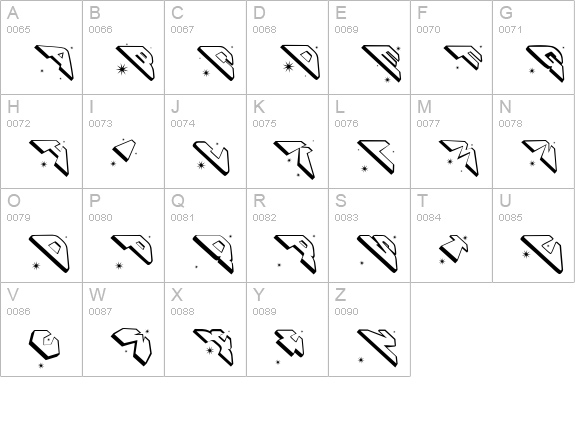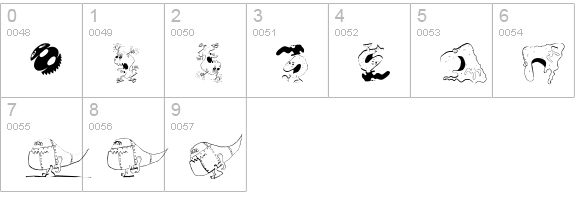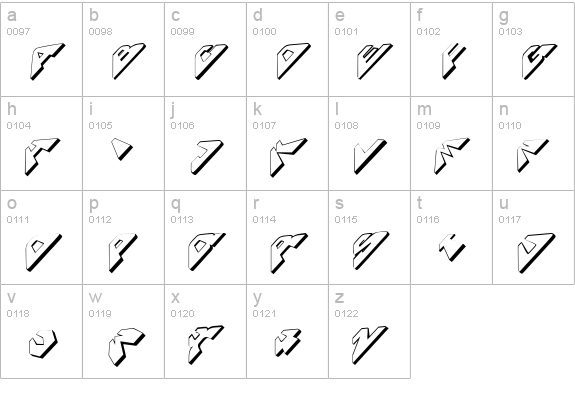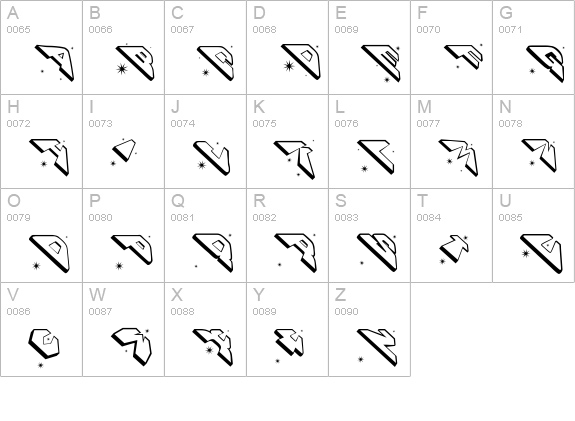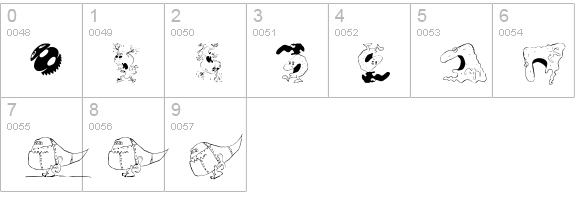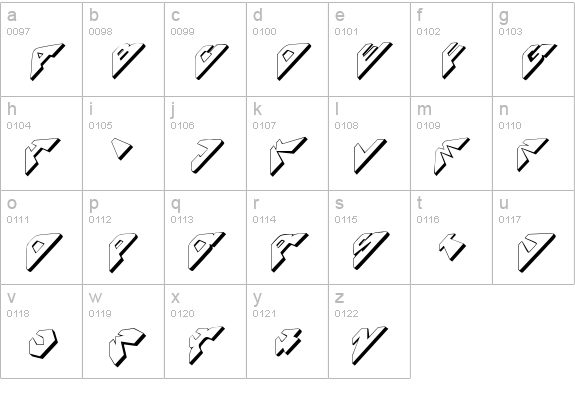
SpaceAttacks Font Details
SpaceAttacks Font is a captivating and futuristic typeface that will transport you to the outer realms of the cosmos. This font is perfect for any design project that requires a touch of otherworldly charm and a dash of sci-fi flair. With its sleek and angular letterforms, SpaceAttacks Font manages to strike the perfect balance between modernity and a classic typographic aesthetic. One of the most remarkable aspects of SpaceAttacks Font is that it is completely free to download. This means that you can add this stunning font to your collection without breaking the bank. Whether you are a professional designer looking to create eye-catching logos or a hobbyist searching for a font to spice up your personal projects, SpaceAttacks Font is the ideal choice. Not only does SpaceAttacks Font offer an exquisite design, but it also provides exceptional versatility. Its wide range of weights and styles allows you to experiment and find the perfect fit for your specific design needs. From bold and impactful headlines to elegant and refined body text, SpaceAttacks Font can effortlessly adapt to any typographic setting. To access this incredible font, simply head over to FontsMarket.com, where it is freely available for download. FontsMarket.com is a trusted online resource for quality fonts, and their commitment to providing designers with access to exceptional typefaces is unrivaled. Don't miss out on the opportunity to enhance your designs with the captivating SpaceAttacks Font – download it for free today!